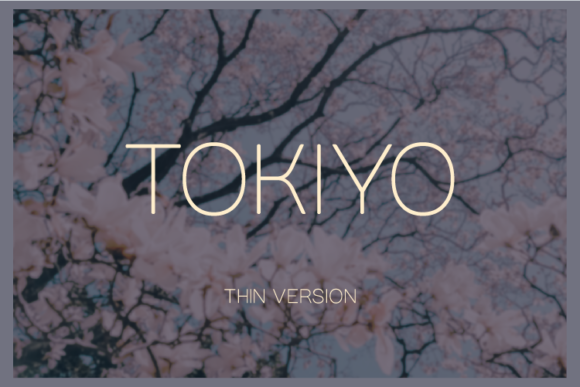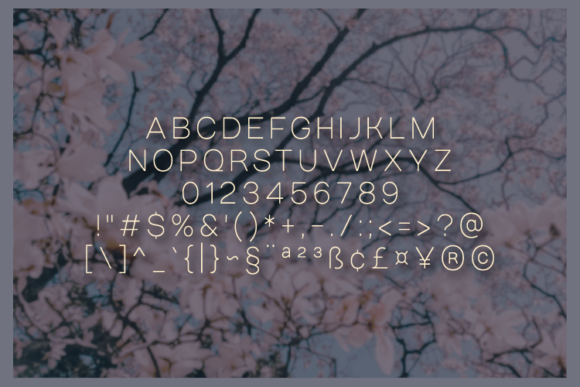
HomeSans Serif FontsTokiyo Thin Font Sans Serif Fonts Tokiyo Thin Font FacebookTwitterPinterestWhatsApp Tokiyo Thin Font 1 of 2 About Tokiyo Thin Font Tokiyo is a sans serif font with Japanese design elements. It smoothly blends beauty and elegance into one outstanding typeface. DOWNLOAD NOW People also explored Bavaria Font Diana Extrend Regular Font Lecold Font Nathalia Font Fortunately Font Next Font Flower Mist Font Kartymonokity 201 0 TagsTokiyo Thin Font Previous articleTokiyo Extra Light FontNext articleGercoff Extra Black Font LEAVE A REPLY Cancel reply Comment: Please enter your comment! Name:* Please enter your name here Email:* You have entered an incorrect email address! Please enter your email address here Website: Save my name, email, and website in this browser for the next time I comment. Personal Use Free Rumaniaya Personal Use Free Read more about this font Cinderella Personal Use Free Read more about this font Market Love Personal Use Free Read more about this font Pattern Personal Use Free Read more about this font BLOG Best Fonts for YouTube Videos: Make Your Thumbnails Stand Out Best Fonts for YouTube Videos: Make Your Thumbnails Stand Out Choosing the right font can make a massive difference in how your YouTube videos perform.... Exploring Font Trends Transform Your Website: Elevate Your Typography with 7 Best Web Font Generators Using Fonts in Digital Marketing: Tips to Strengthen Your Brand Identity